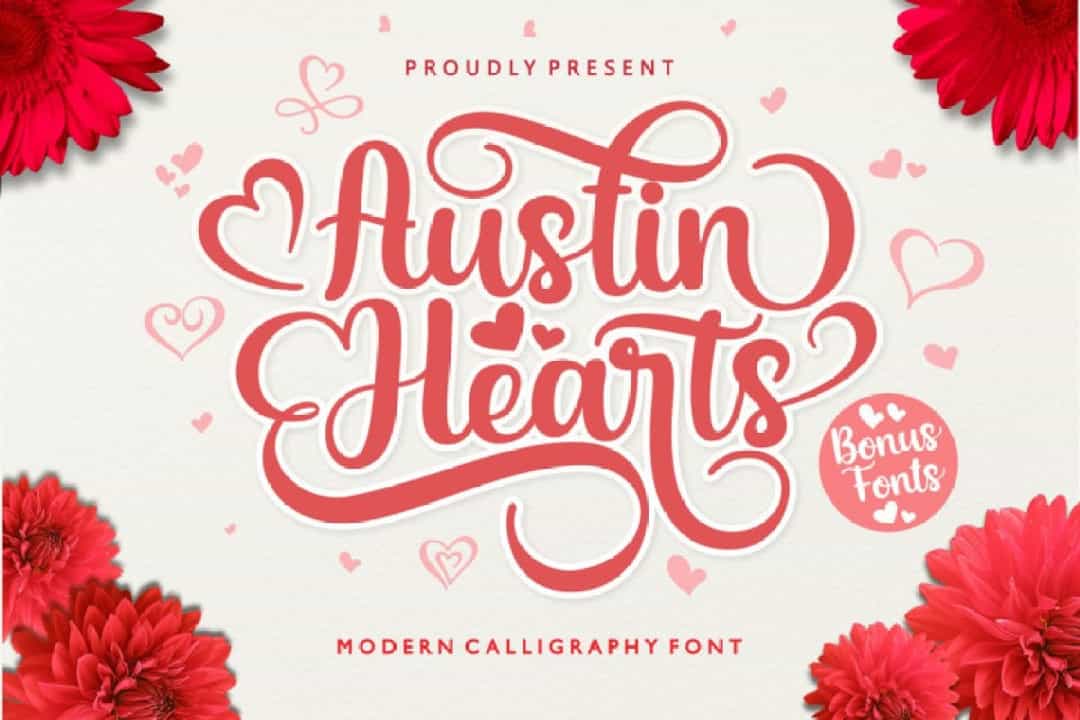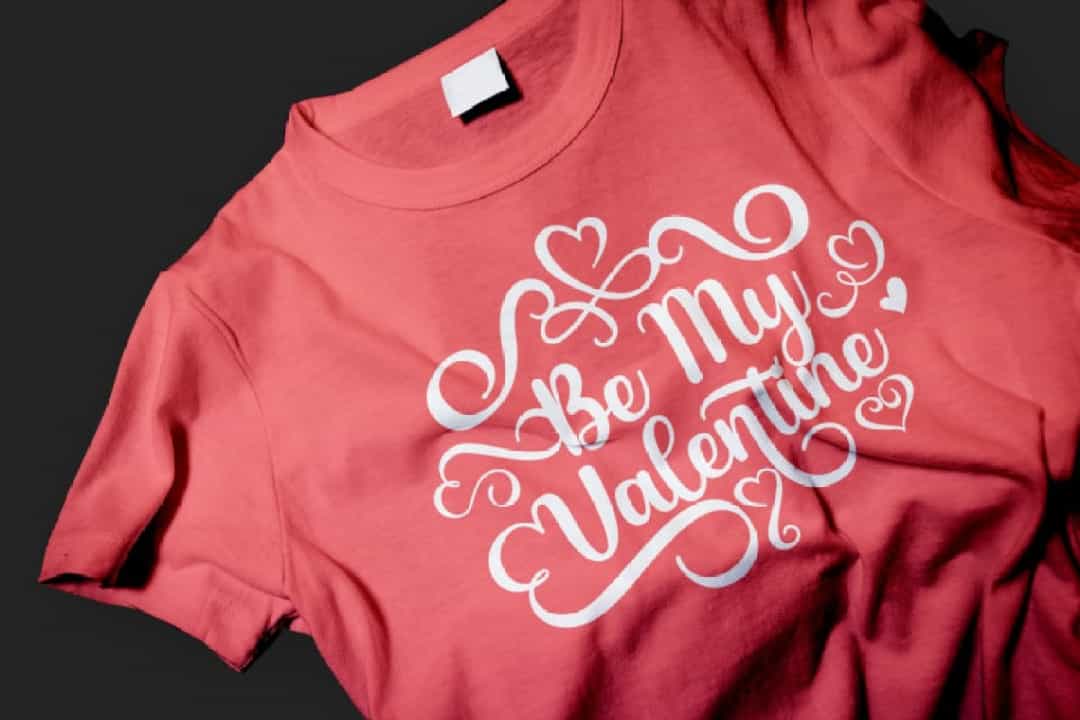
Austin Hearts is a beautiful script font with beautiful letters and lavish swashes perfect for titles like invitations, clothing titles and logos, stationery designs, branding projects, quotes in greeting cards, logos, packages designs, t-shirts, posters and many more.